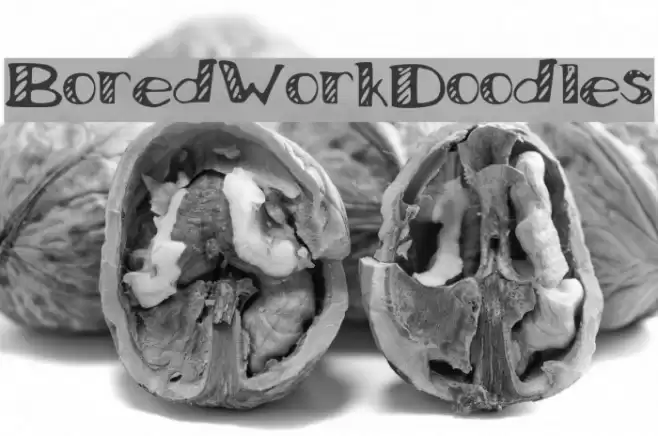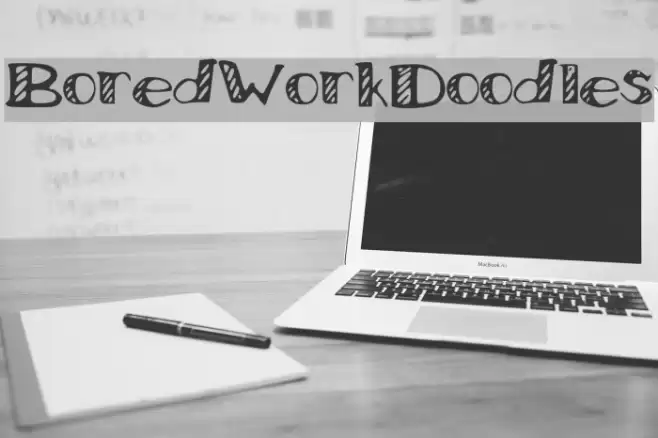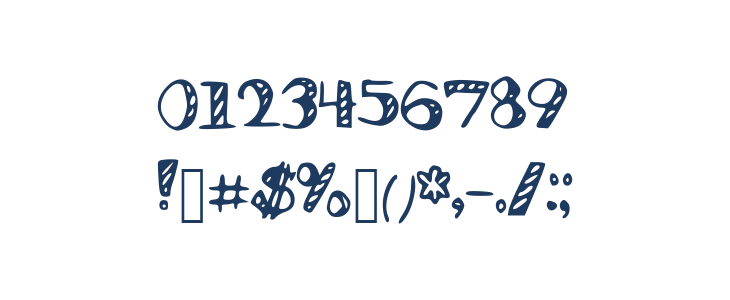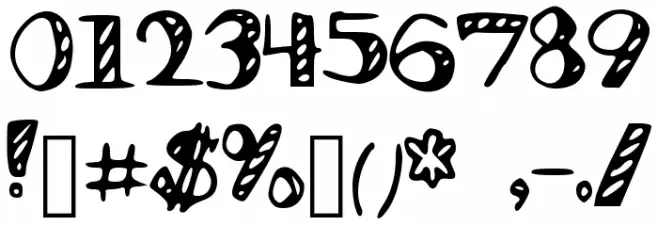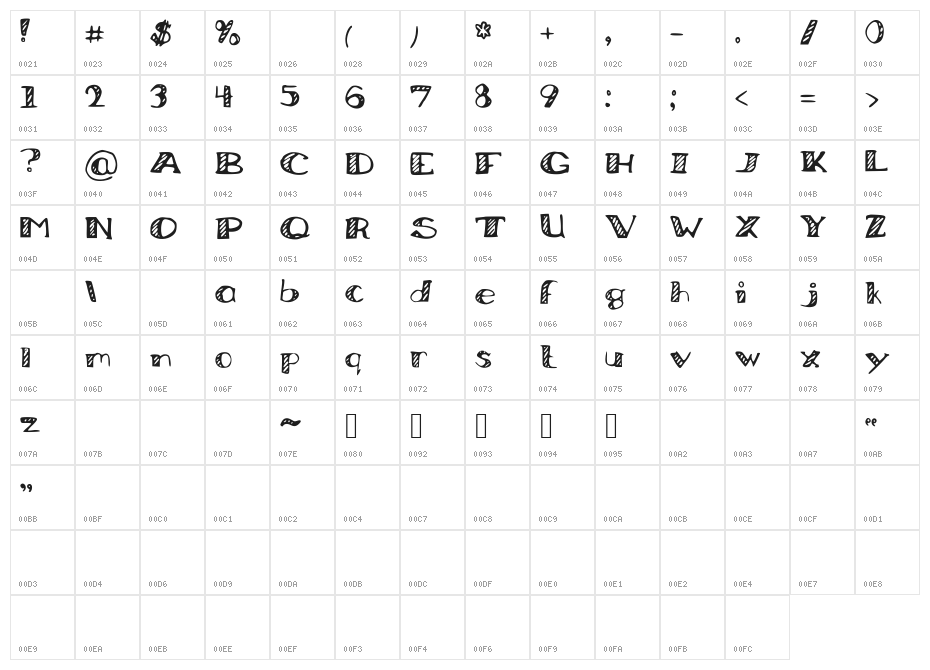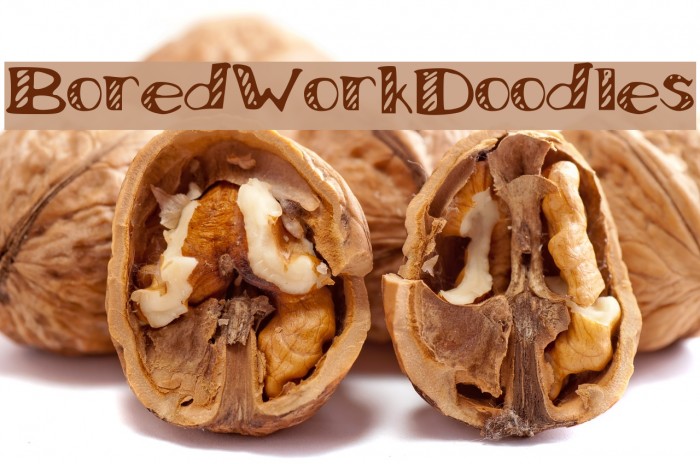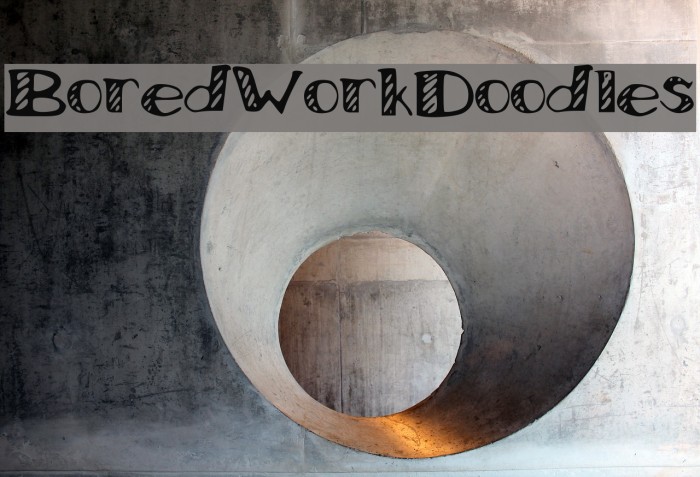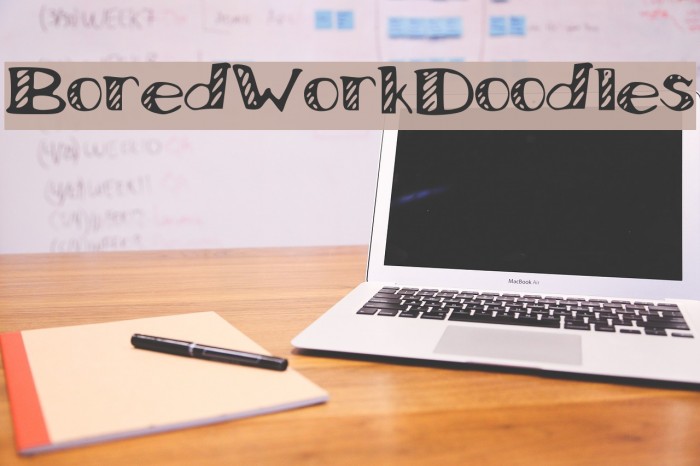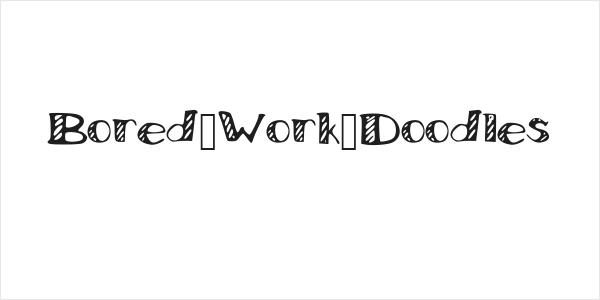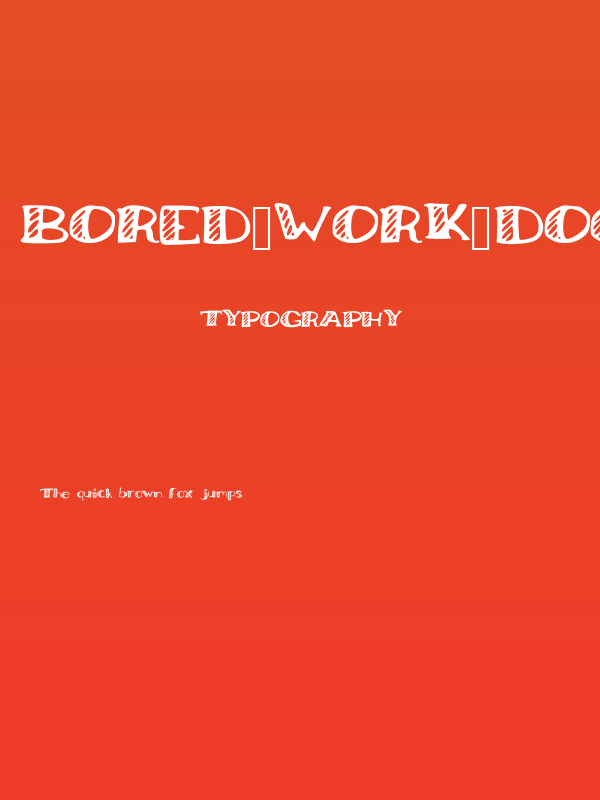
Bored_Work_Doodles Font
Bored_Work_Doodles Description
This playful and whimsical font features a hand-drawn style with a doodle-like appearance. Each character is filled with unique patterns, including stripes and dots, giving it a lively and energetic feel. The letters have a casual, informal look, reminiscent of sketches or notes made during a moment of creativity. The font's irregular shapes and varying line thicknesses contribute to its dynamic and fun personality, making it ideal for projects that require a touch of humor and creativity.
A playful, hand-drawn font with doodle-like patterns and a whimsical style from Cartoon fonts.
- Proposed Projects: Perfect for children's books, playful branding, greeting cards, and creative posters.
- Overall Style: Whimsical, Playful